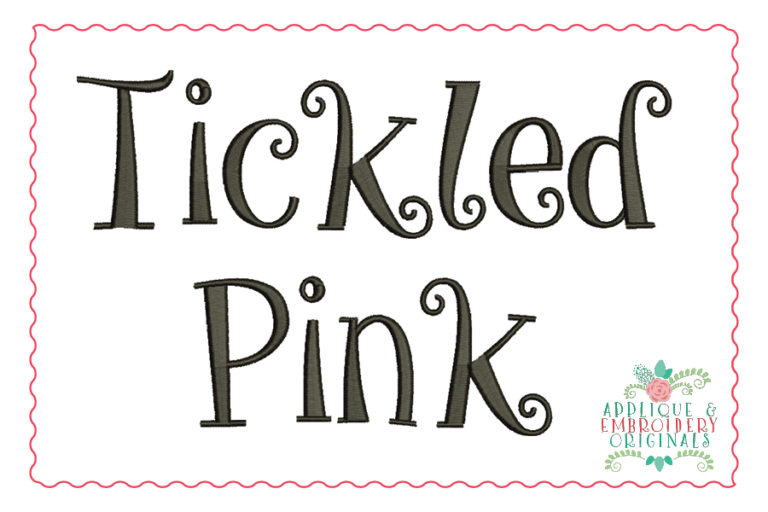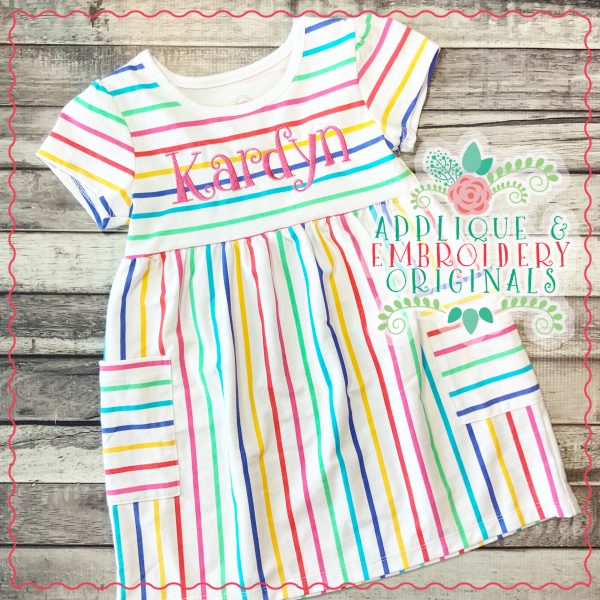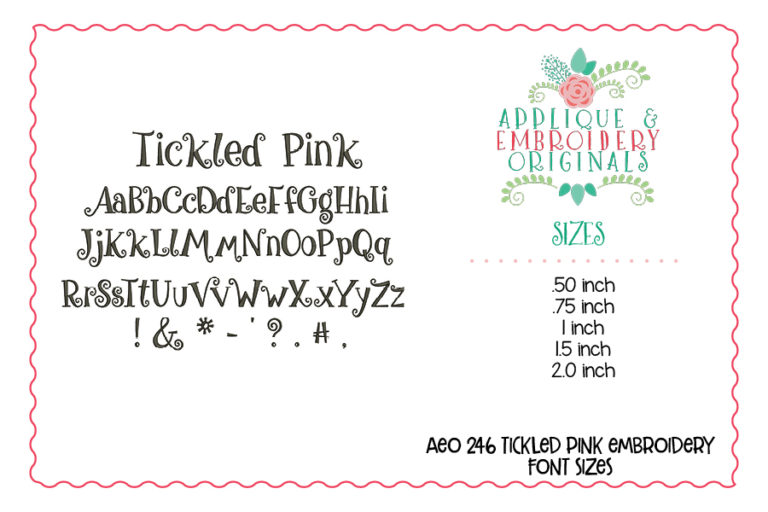
246 Tickled Pink Embroidery Font for embroidery machine. Perfect for your shirt, bag, towel or other item!
Designs comes in sizes .50″, .75″, 1″, 1.5″, 2″. All letters include A-Z, a-z and special characters. All letters are satin stitch.